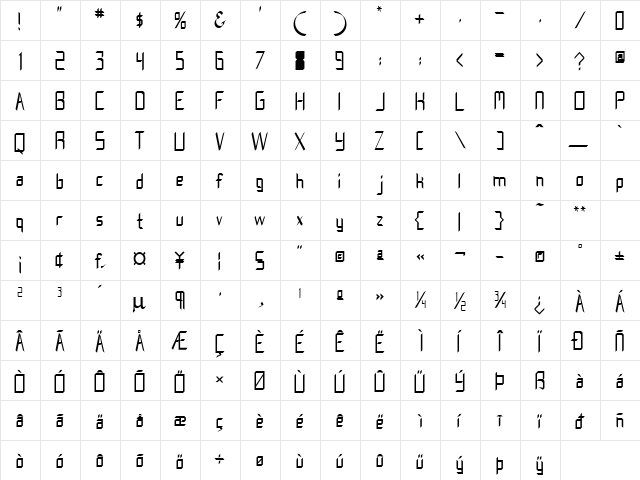
Leapfrog Normal Font Preview
Leapfrog Normal
Leapfrog Normal Font Details
Design Context for Leapfrog Typeface
Leapfrog offers clean, dependable letterforms without strong stylistic allegiance, making it a practical choice for designers who need flexibility.
Pro Tip: Pair Leapfrog with a font of contrasting weight or personality to build a more expressive typographic hierarchy.